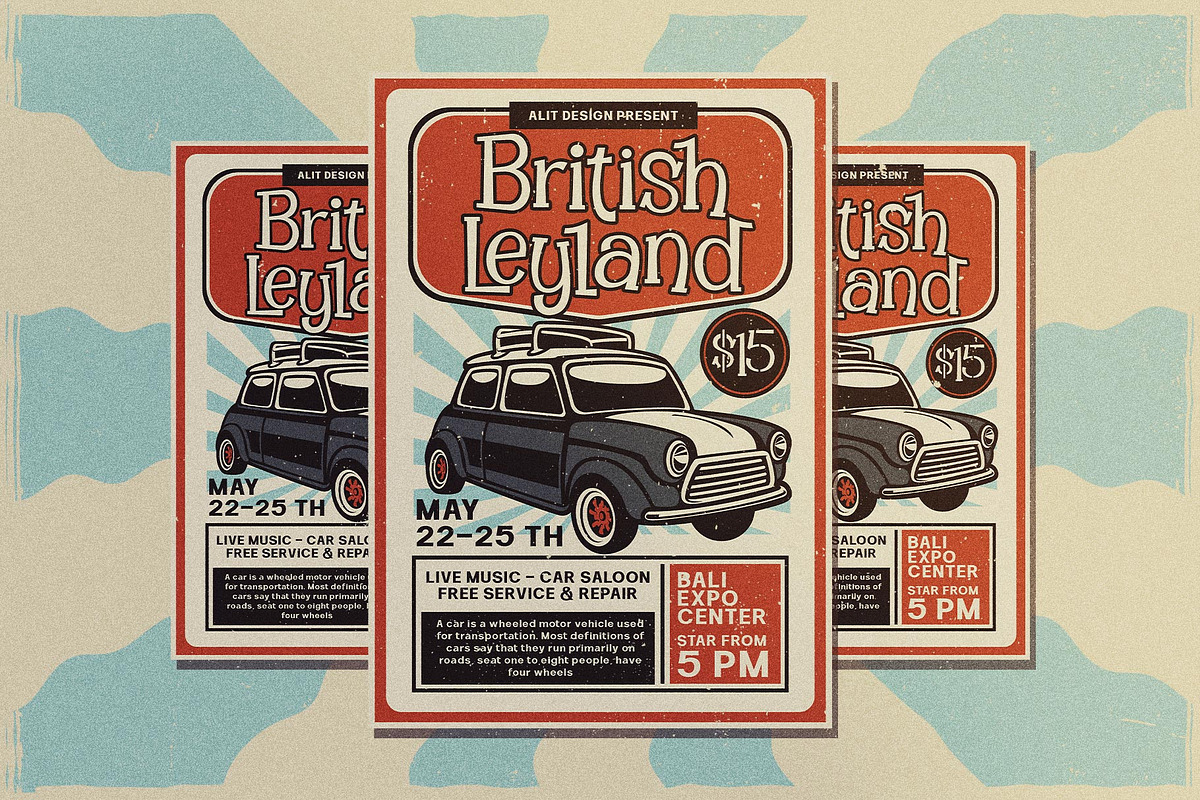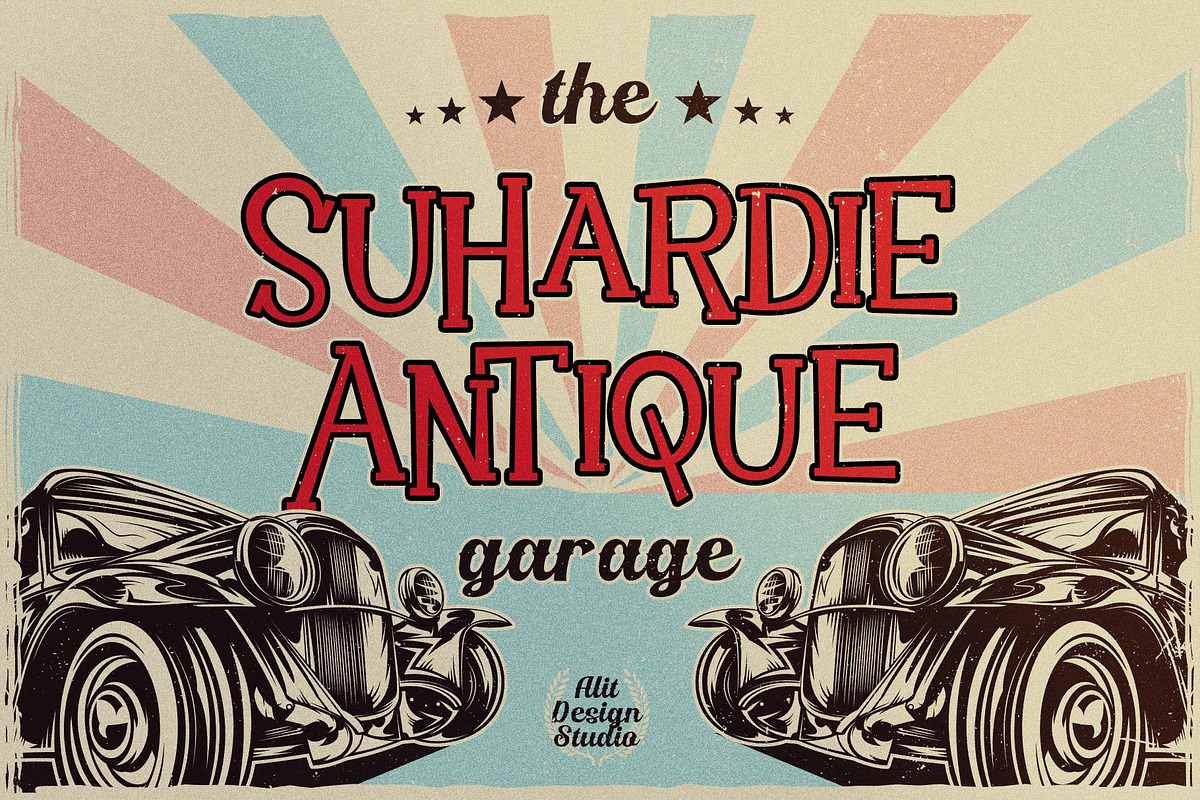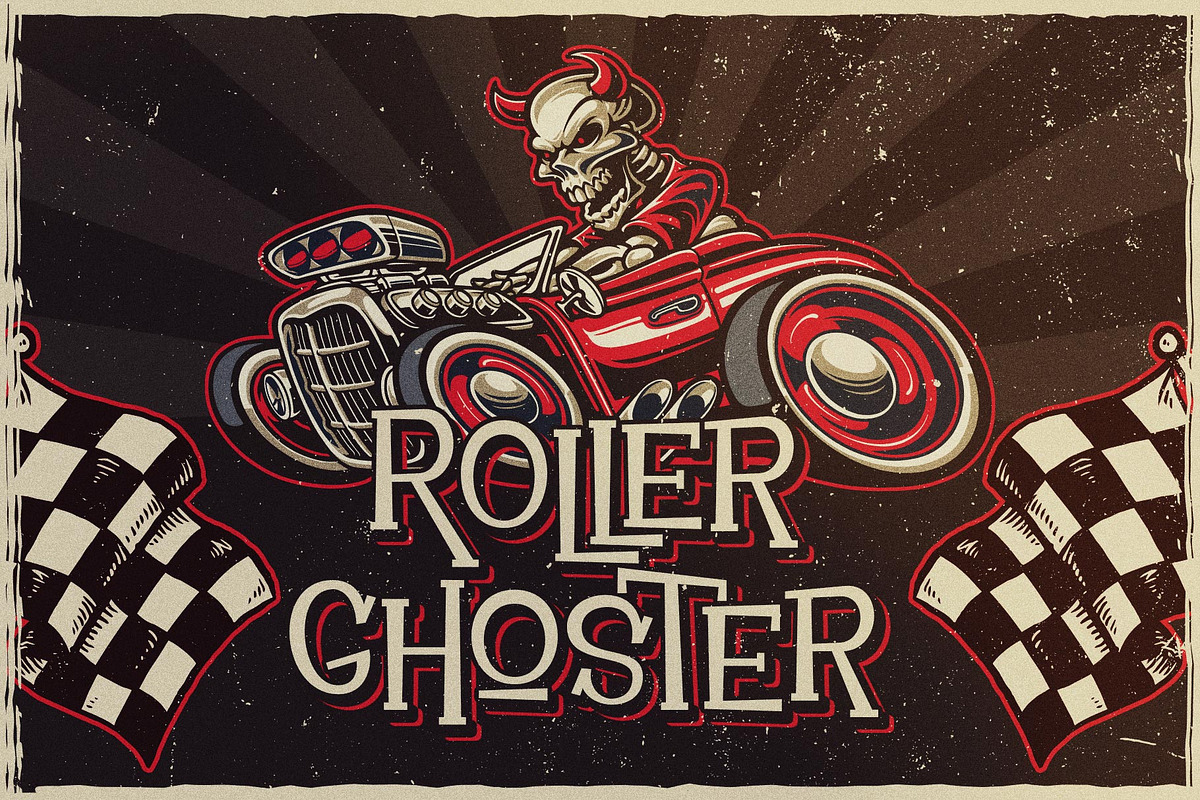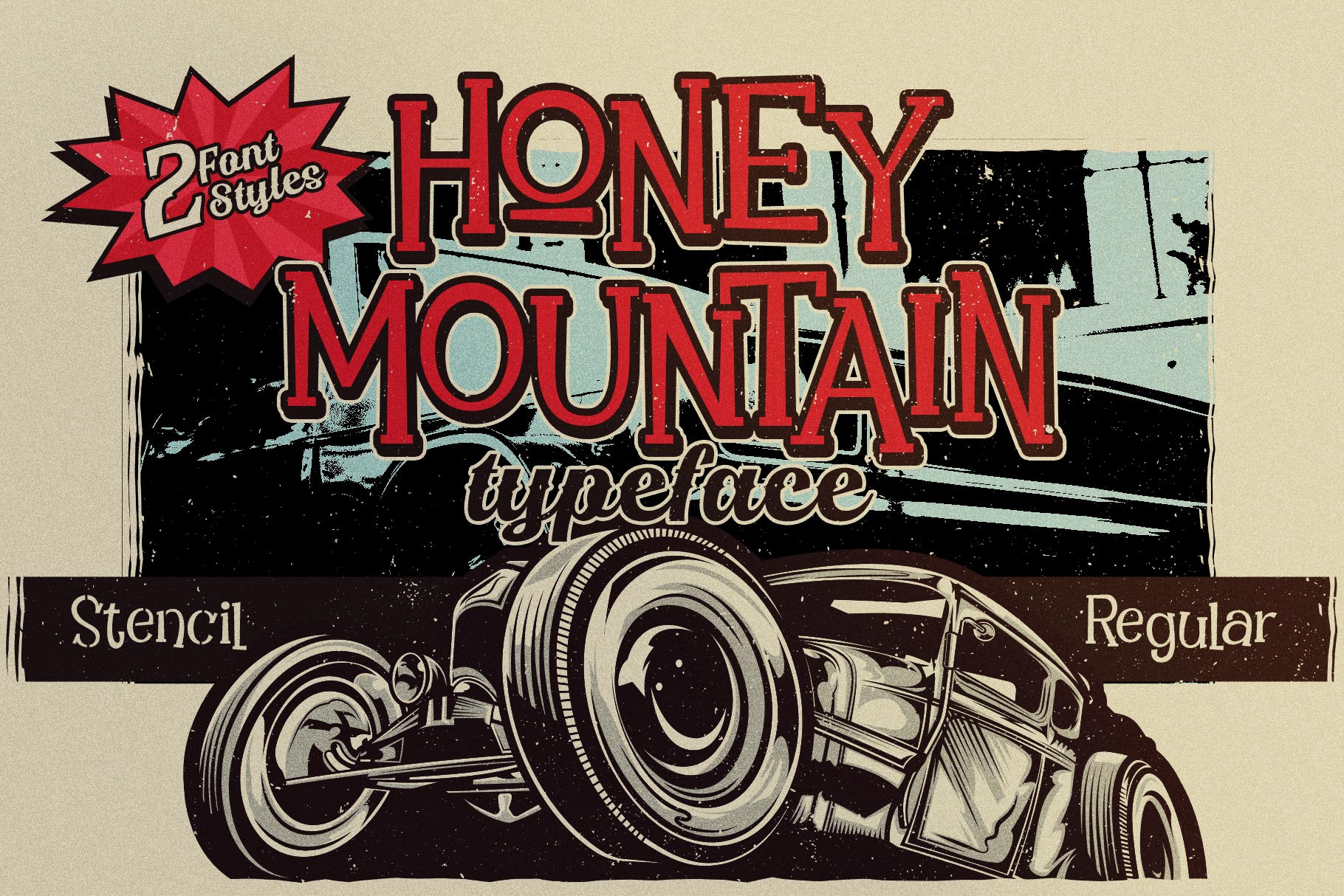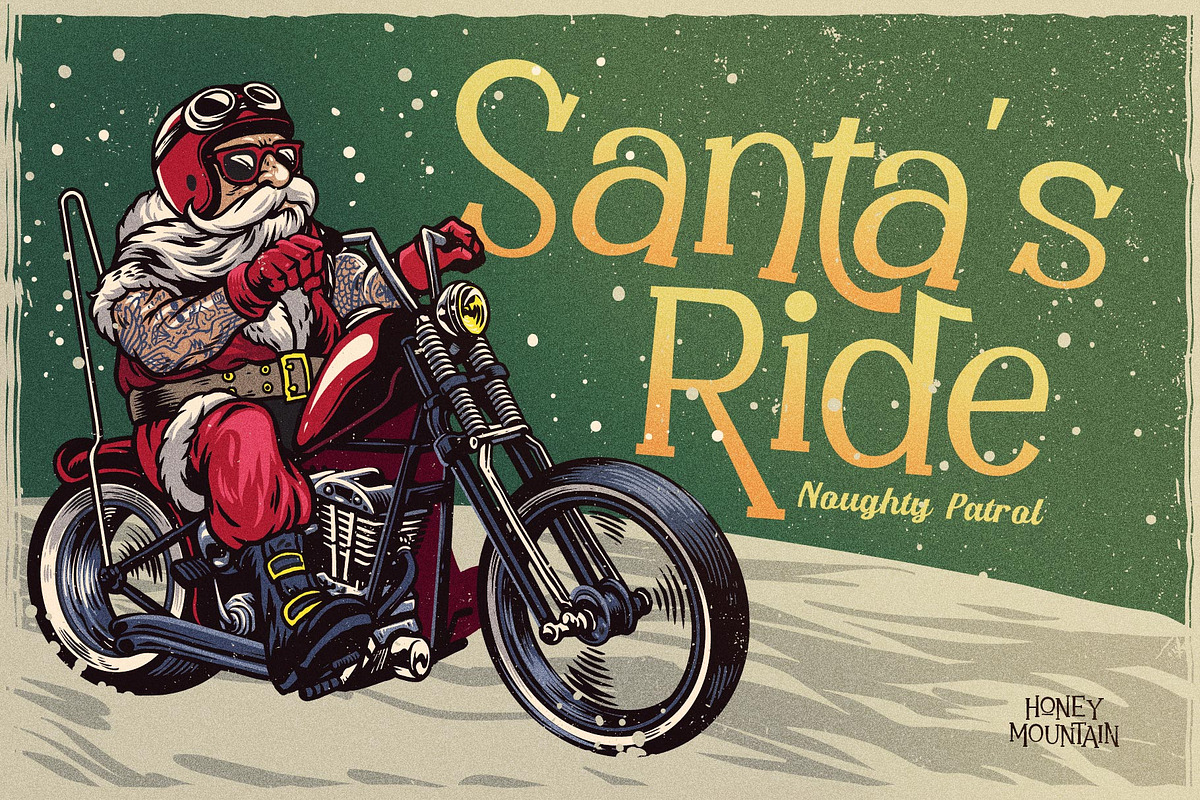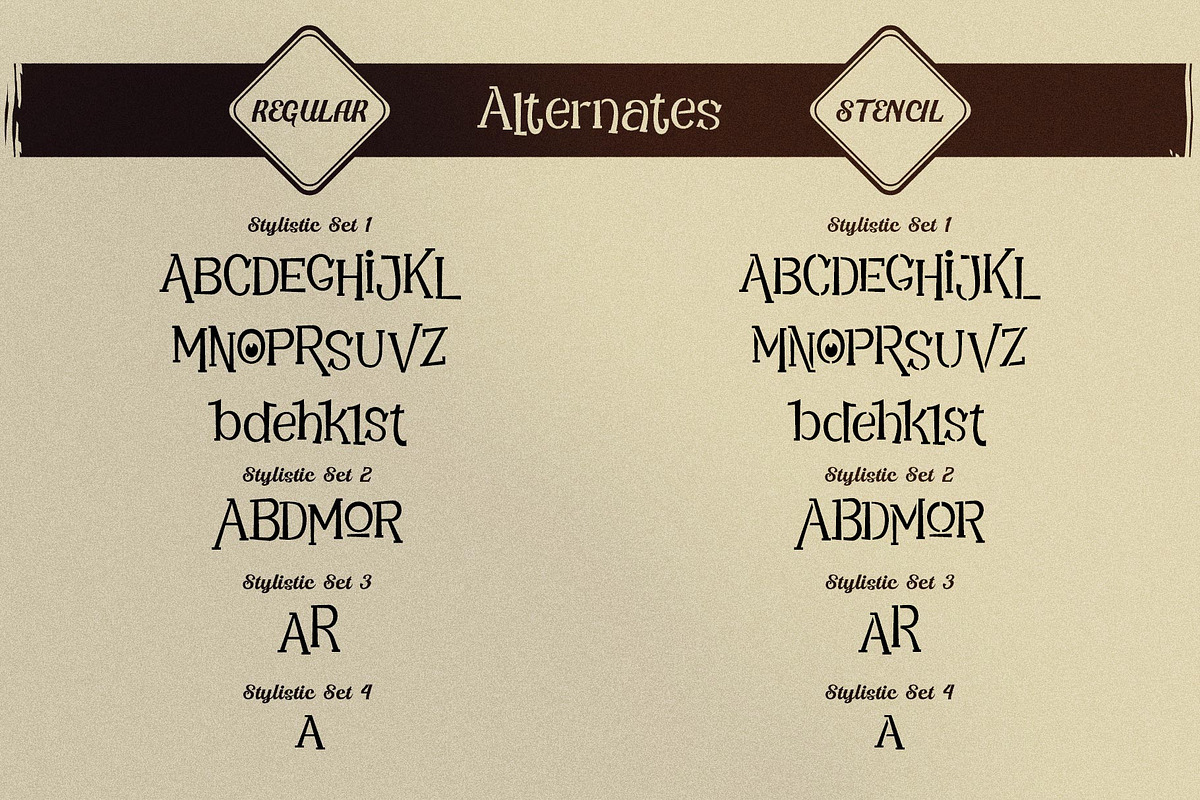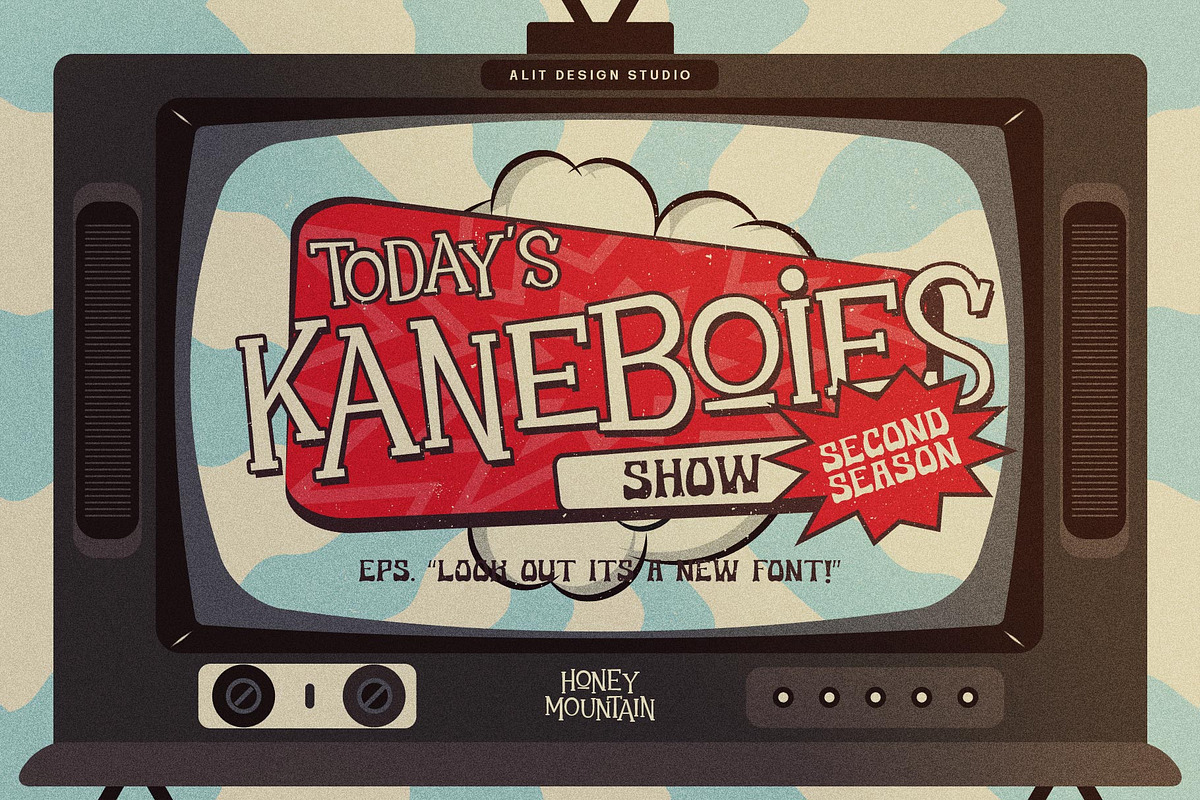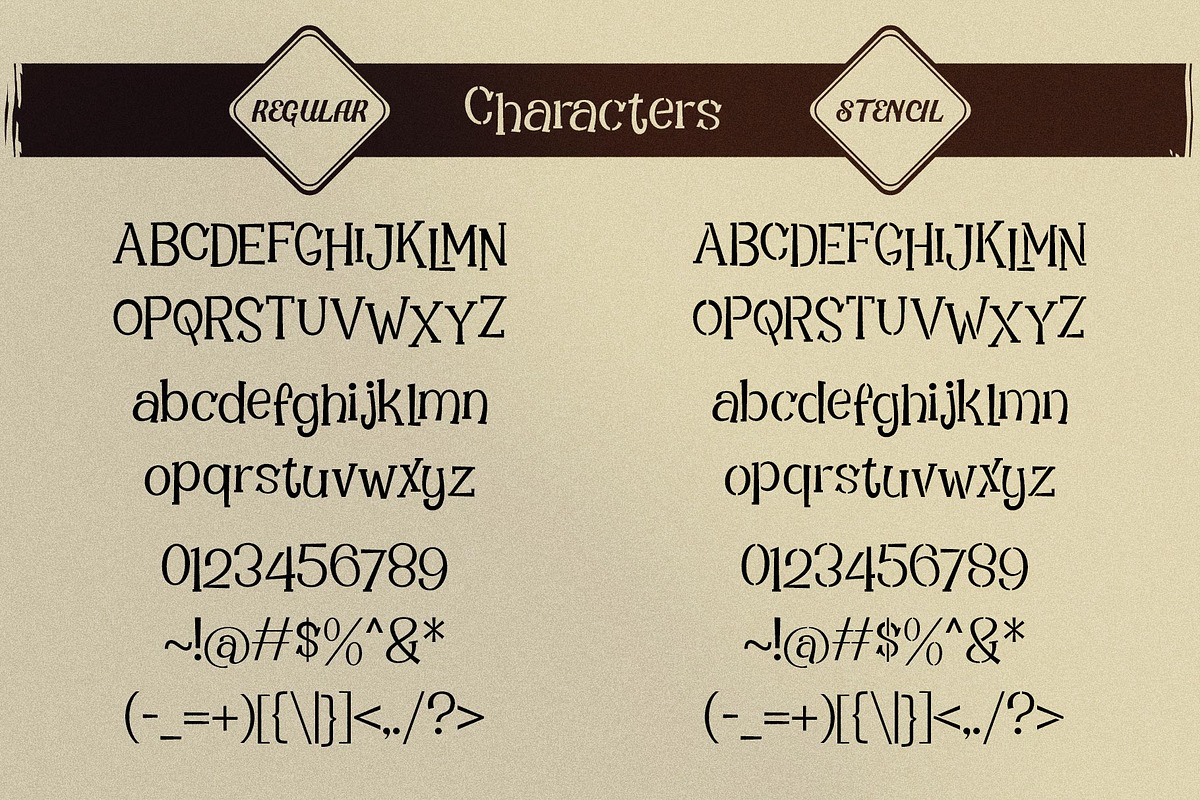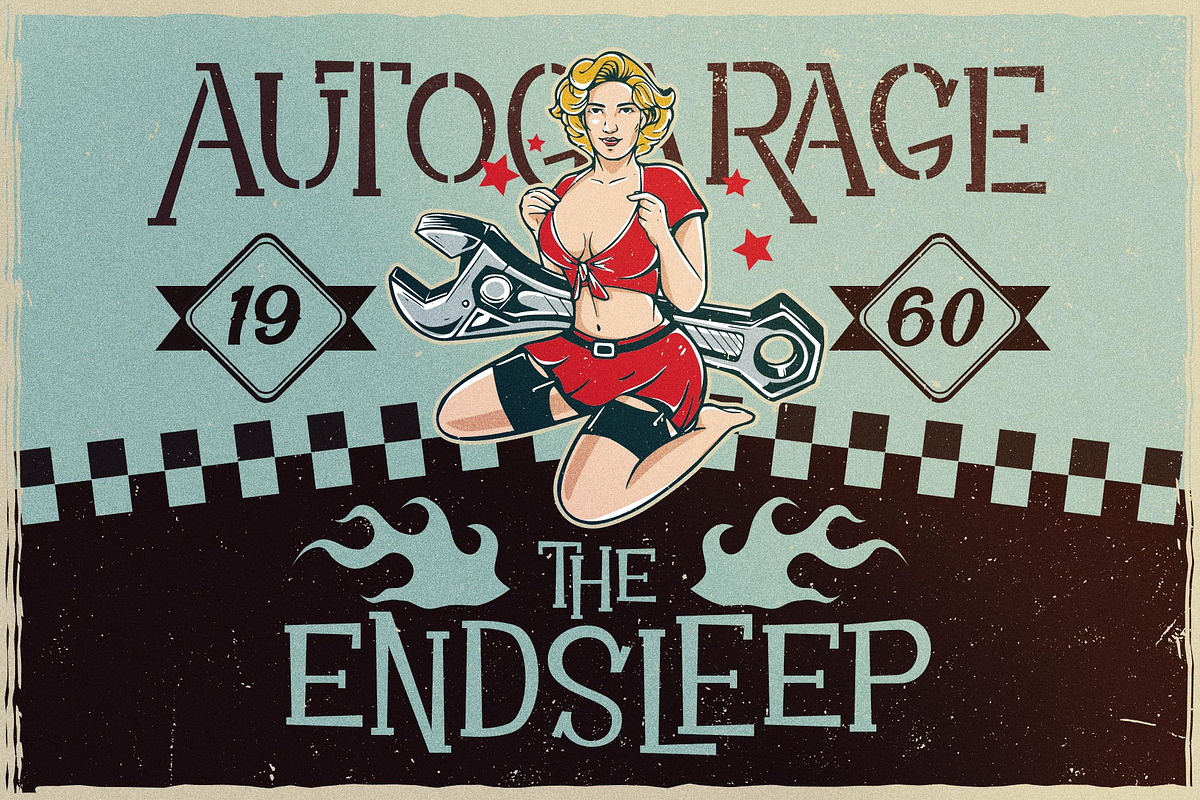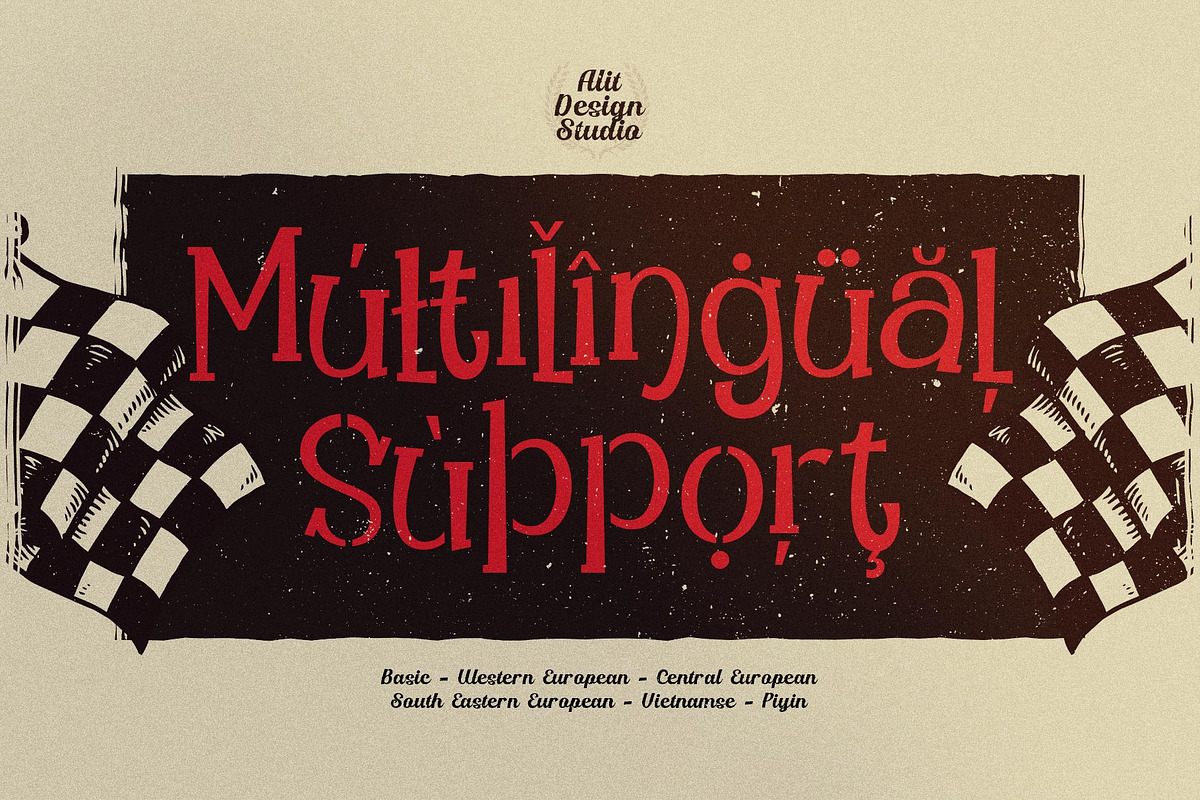
Honey Mountain Typeface
Introducing Honey Mountain Typeface
The Honey Mountain font is designed with a serif display font concept that has a playful stencil style. Irregular dynamic shapes but impressively bold and unique make the font "Honey Mountain" different and steal attention.
Serif typefaces such as "Honey Mountain" are very easy to apply to any design, especially those with an retro and classic, army and retro concept, besides that this font is very easy to use both in design and non-design programs because everything changes and glyphs are supported by Unicode (PUA).
The "Honey Mountain"contains 644 glyphs with many unique and interesting alternative options.
Language Support : Latin, Basic, Western European, Central European, South European,Vietnamese,